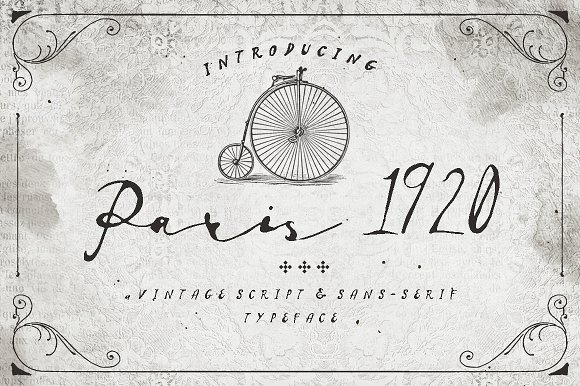
Introducing Paris 1920 Font Collection, a mesmerizing blend of elegance and nostalgia crafted by the talented team at Blue Robin Design Shop. This exquisite collection boasts two distinctive versions: Paris 1920 Script and Paris 1920 Sans Serif.
With its classic handwritten style, Paris 1920 Font effortlessly encapsulates the spirit of the roaring 1920s, exuding an air of sophistication and charm. Whether you're designing invitations, logos, or social media graphics, this font collection is the perfect choice to infuse your creations with character and a personal touch.
Paris 1920 Script is a true embodiment of vintage allure. Its flowing script and delicate curves transport you back in time, evoking the romanticism and glamour of the Art Deco era. Use this font to add a touch of elegance and refinement to your wedding invitations, greeting cards, or branding projects. Let your words dance across the page with the grace of a bygone era.
For those seeking a more contemporary twist, Paris 1920 Sans Serif provides a sleek and modern alternative. This clean and minimalist font offers a refreshing take on the vintage aesthetic, making it ideal for fashion, lifestyle, and travel-related designs. Its versatility allows you to effortlessly create eye-catching headlines, captivating logos, and stylish social media posts.
But it doesn't stop there. Paris 1920 Font Collection goes beyond its stunning visual appeal. Crafted with meticulous attention to detail, this font collection is also highly functional and user-friendly. With a comprehensive range of characters, including multilingual support, you can confidently express your creativity in various languages and effortlessly communicate your message to a global audience.
Join countless designers and creatives who have already fallen in love with Paris 1920 Font Collection. Elevate your designs with its timeless beauty and unleash your imagination like never before. Whether you're a professional designer or a passionate hobbyist, this font collection will inspire you to create captivating works of art that leave a lasting impression.